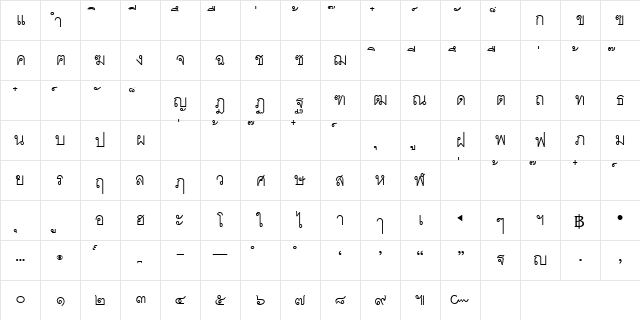
ThaiPlainDJA Regular
Design Context for ThaiPlainDJA Typeface
ThaiPlainDJA offers clean, dependable letterforms without strong stylistic allegiance, making it a practical choice for designers who need flexibility.